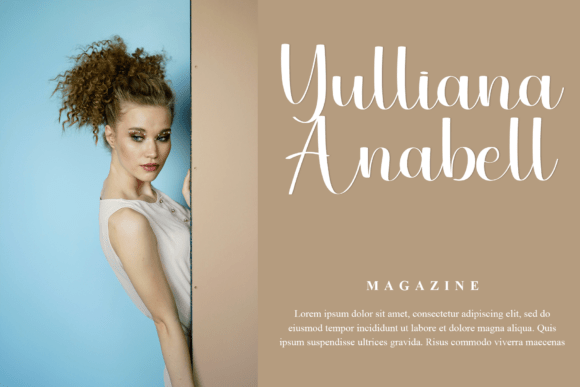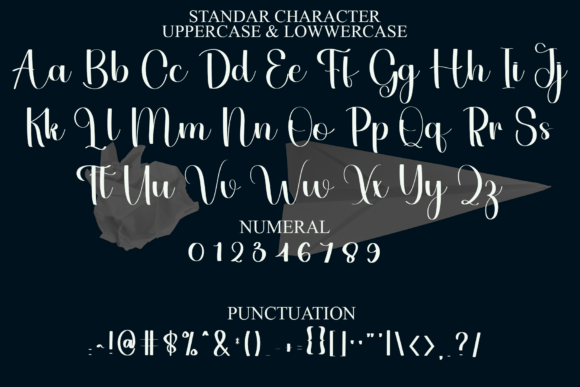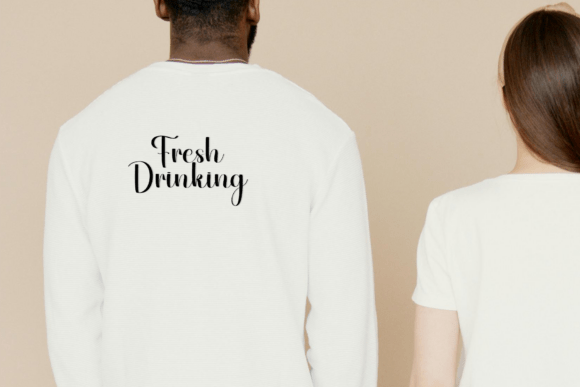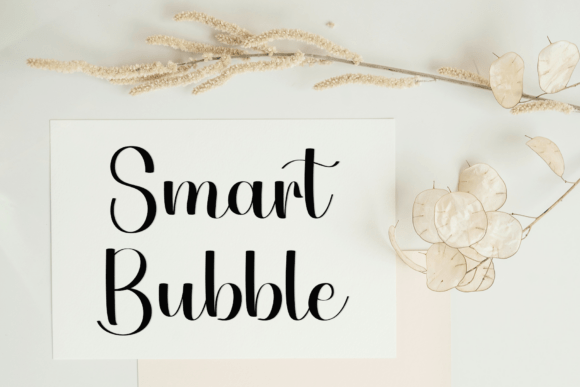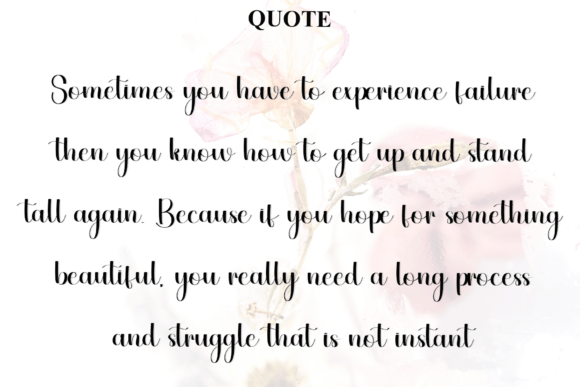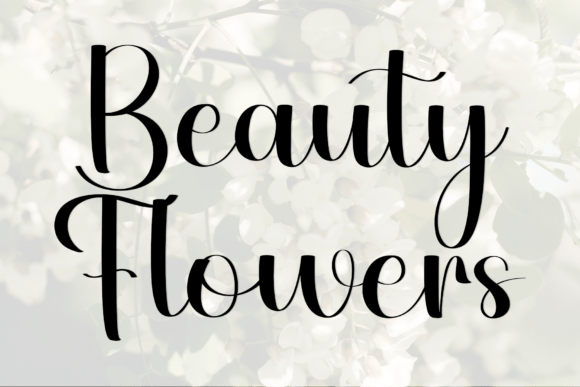
Discover the Enchanting Font: A Casual and Creative Companion for Designers
Are you on the hunt for a font that embodies warmth, friendliness, and a dash of playfulness? Look no further than the Enchanting Font. This delightful, hand-drawn typeface is perfect for breathing life into personal projects, invitations, social media graphics, and a myriad of other creative endeavors. With its round, gentle strokes, the Enchanting Font exudes a relaxed and approachable feel, making it an ideal choice for designers and crafters seeking to add a personal touch to their work.
The Charm of Enchanting Font
What sets the Enchanting Font apart is its charming, hand-drawn aesthetic. Each letter is carefully crafted to convey a sense of fun and uniqueness, allowing designers to infuse their projects with a distinct personality. Whether you’re working on a wedding invitation, a social media post, or a personal blog, this font is sure to captivate your audience and leave a lasting impression.
Technical Specifications: PUA Encoded Glyphs
The Enchanting Font comes equipped with standard PUA (Private Use Area) Encoded glyphs. This means that the font is compatible with a wide range of design applications, including Adobe Photoshop, Corel, Adobe Illustrator, Canva, and many others. The PUA encoding allows for effortless access to a variety of glyphs, making it easy to customize and adapt the font to suit your specific design needs.
One of the standout features of the Enchanting Font is its versatility. Its casual and creative vibe makes it suitable for a diverse range of projects, from:
- Personal invitations, such as wedding invites, birthday cards, and baby shower announcements
- Social media graphics, including Facebook posts, Instagram stories, and Twitter headers
- Blog and website designs, where a friendly and approachable tone is desired
- Branding and packaging materials, such as labels, stickers, and business cards
Why Choose Enchanting Font?
So, what makes the Enchanting Font an attractive choice for designers and crafters? Here are just a few reasons:
- Unique and eye-catching: The Enchanting Font’s hand-drawn aesthetic ensures that your designs stand out from the crowd.
- Easy to read: The font’s round, playful strokes create a clear and legible design, perfect for conveying your message.
- Highly versatile: With its PUA Encoded glyphs, the Enchanting Font can be used in a wide range of design applications.
- Time-saving: The font’s comprehensive character set and encoding save you time and effort in the design process.
Tips for Using Enchanting Font
To get the most out of the Enchanting Font, here are a few tips to keep in mind:
- Experiment with colors: The Enchanting Font pairs well with a variety of colors, so don’t be afraid to get creative and try out different combinations.
- Mix and match: Combine the Enchanting Font with other fonts to create a unique and visually appealing design.
- Pay attention to spacing: Adjust the letter spacing to achieve the perfect balance and flow in your design.